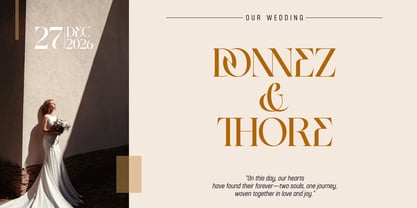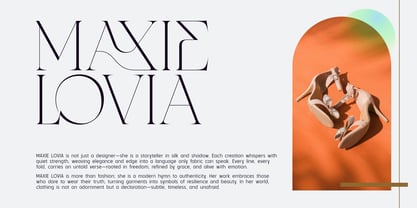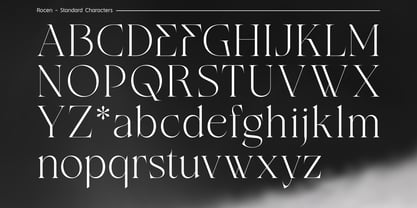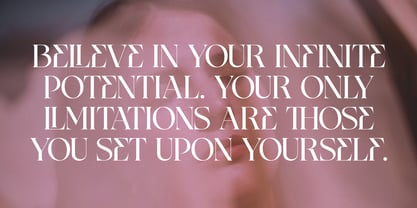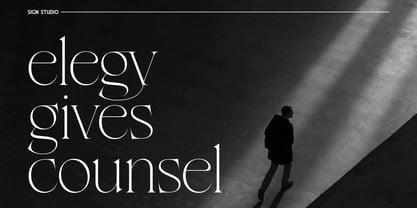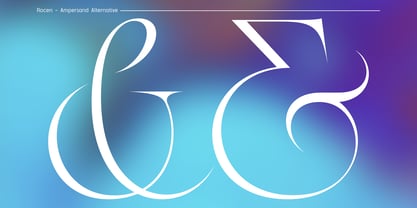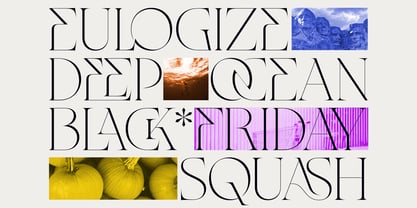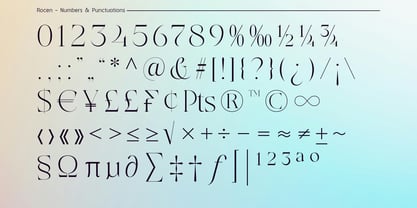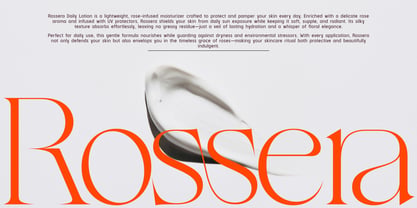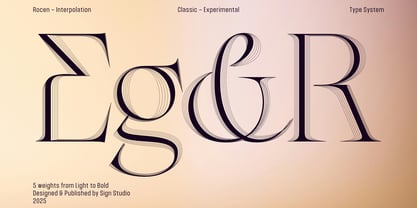
Rocen
by Sign Studio
The Rocen Font Family was designed by Sugi Yanto and published by Sign Studio. Rocen contains 5 styles and family package options. More about this family
Rocen is a timeless serif crafted for modern expression. It merges graceful classic proportions with a refined contemporary touch, resulting in a typeface that is both sophisticated and versatile. Defined by its balanced contrast and distinctive ligatures, Rocen lends a sense of character and polish to every composition—whether subtle or striking.
Offered in five versatile weights, from Light to Bold, Rocen adapts effortlessly to diverse applications, from editorials and brand identities to luxury packaging and digital storytelling. Its refined details and harmonious letterforms ensure readability without sacrificing elegance, making it a reliable choice for both functional design and visual impact.
Rocen comes equipped with powerful OpenType features, including:
57 Discretionary Ligatures (Uppercase & Lowercase)
Stylistic Alternates, including Ampersand Variations
With broad Latin language support, Rocen is designed for creators seeking a typeface that balances clarity with personality. Whether used in print or digital, Rocen brings a lasting impression of beauty, sophistication, and modern grace.